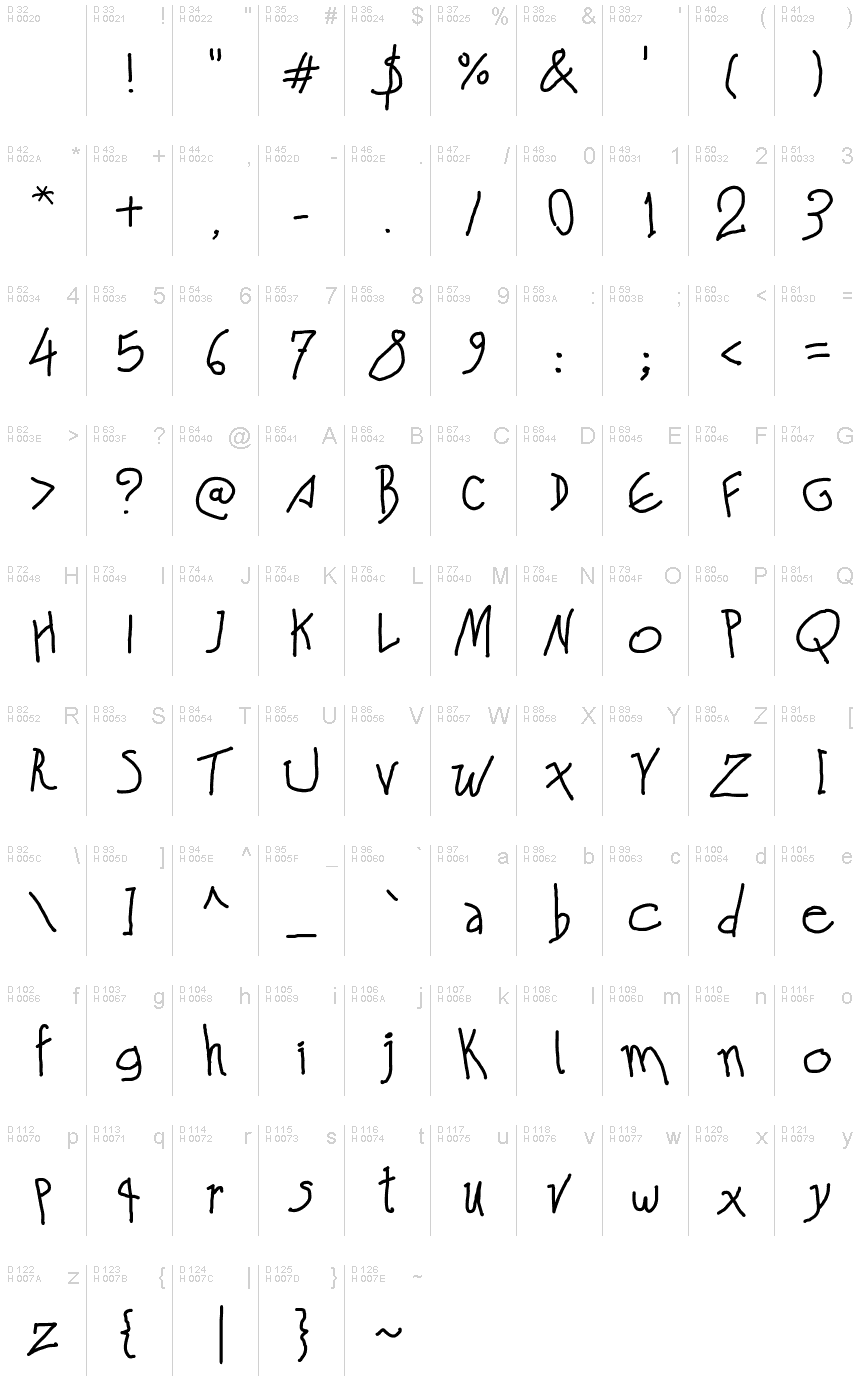
Comic Book Cartunia
Comic Book Cartunia, designed by Galdino Otten, is a light script font that adds a playful and whimsical touch to any project.
With its flowing lines and hand-drawn feel, this font is perfect for creating eye-catching designs in children's books, greeting cards, and invitations. Its light weight gives it an airy and delicate appearance that makes it suitable for adding a touch of fun to logos, packaging designs, and social media graphics.
Let Comic Book Cartunia bring your projects to life with its charming and animated style!
With its flowing lines and hand-drawn feel, this font is perfect for creating eye-catching designs in children's books, greeting cards, and invitations. Its light weight gives it an airy and delicate appearance that makes it suitable for adding a touch of fun to logos, packaging designs, and social media graphics.
Let Comic Book Cartunia bring your projects to life with its charming and animated style!